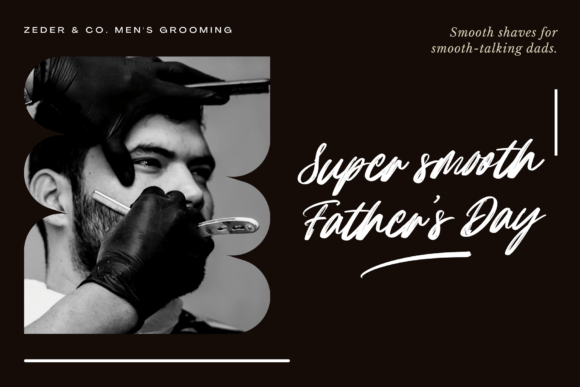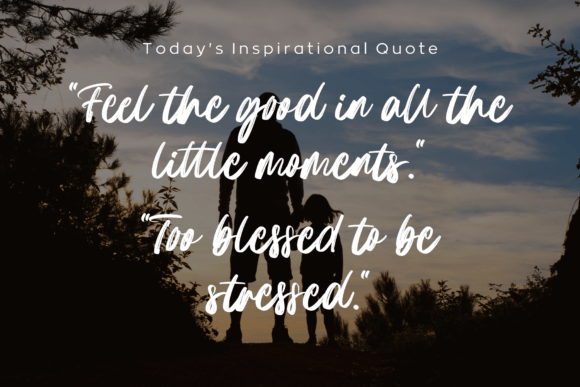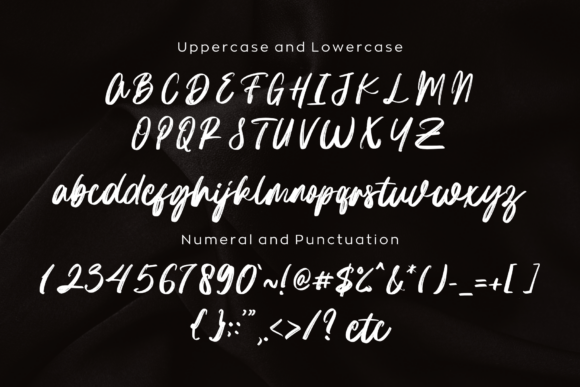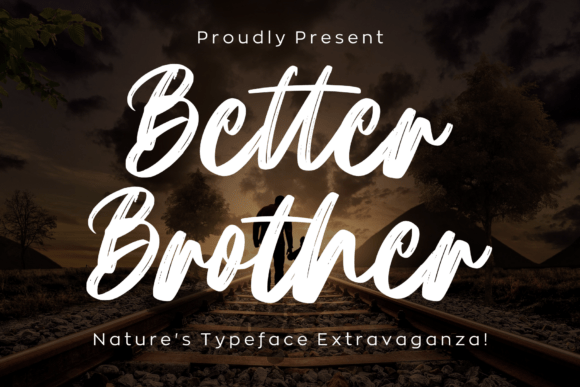
Unleashing the Mesmerizing Intricacy of Better Brother Font
I still remember the design project that led me to discover the enchanting world of Better Brother font. I was working on a branding project for a luxury boutique hotel, and my client requested a unique, elegant script font that would reflect the sophistication and charm of their establishment. As I scoured the internet for the perfect font, I stumbled upon Better Brother font, and it instantly captivated me with its mesmerizing intricacy and artistic allure.
A Personal Review: What I Love and What I Think Could Be Improved
- ✅ The flawless compatibility of Better Brother font with a broad spectrum of design propositions, making it an incredibly versatile addition to my font library.
- ✅ The opulent selection of ligatures and alternates, which amplifies the adaptability of my designs and paves the way for limitless artistic expressions.
- ✅ The refined finesse it injects into my design narratives, elevating them to new echelons of excellence.
- ⚠️ Occasionally, some characters may require manual kerning for optimal spacing, which can be a minor inconvenience for designers working under tight deadlines.
- ⚠️ The font’s intricate details may not render as crisply at very small sizes, requiring careful consideration of font size and resolution.
According to its creator, Better Brother font was inspired by the intricate details and ornate flourishes of traditional calligraphy. The designer aimed to craft a font that would evoke a sense of visual lyricism and artistic allure, while maintaining a high level of legibility and versatility. Through its mesmerizing intricacy and refined finesse, Better Brother font has become a beloved addition to many designers’ font libraries.
Q: What makes Better Brother font so versatile?
A: Better Brother font’s versatility stems from its flawless compatibility with a broad spectrum of design propositions, as well as its opulent selection of ligatures and alternates.
Q: Is Better Brother font suitable for body text?
A: While Better Brother font is primarily designed for display purposes, it can be used for body text in certain contexts. However, its intricate details may not render as crisply at smaller font sizes, so use it judiciously.